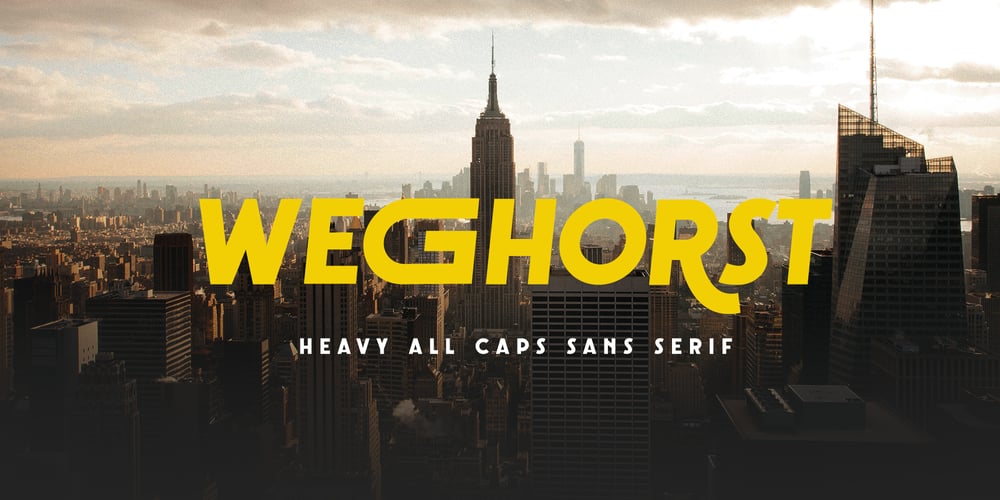
Weghorst Font Family was designed by Muhammad Afif Ersya and published by Mevstory Studio. Weghorst contains 2 styles and family package options. Introducing Weghorst Sans Serif.Weghorst is a modern and nostalgic sans serif font, best used as a display for headings, logos, branding, magazines, product packaging and invitations. Weghorst come with clean lines and smooth curves give any project an extra touch of class.If there’s anything else you are unsure of feel free to pop me a message ๐ That’s it! Have fun using Newstar Sans Serif!!! Feel free to follow, like and share.